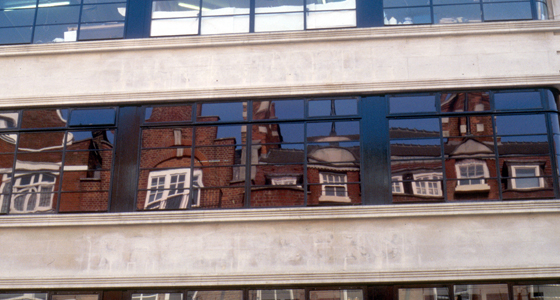
27–29 Long Acre
Only very slight traces of both ‘London’s favourite fruiterers, T Walton & Sons (London) Ltd’ [note This was Walton’s warehouse and head office. They also owned a chain of shops situated in tube stations which all used similar lettering.] and ‘Saint Martins School of Art’ remain on this façade. The building has been cleaned of its history both within and without. No evidence can be seen of the original floor plan in the new H&M and the ground floor façade is only an approximation of the original fenestration.
St Martin’s School of Art bought the lease to this building in 1980 and re-used the letters left by the previous owner making the extras needed to re-sign the frontage.
[note Although the college merged with the Central School of Art & Design to become Central Saint Martins College of Art & Design in 1989, the new name never appeared on the building.] When the graphics course left the building in November 1999 they took the letters with them and re-erected them on the fourth floor the college’s Lethaby building in Southampton Row.
Despite being made of thin steel in a hollow box-section, these letters had considerable presence when viewed from the street.
The letters from Long Acre on the fourth floor of Central Saint Martins Lethaby building in Southampton Row.
At ground level
Although only a version of the typeface Helvetica, the smaller name at street level was in sympathy with the building by virtue of its material: steel.